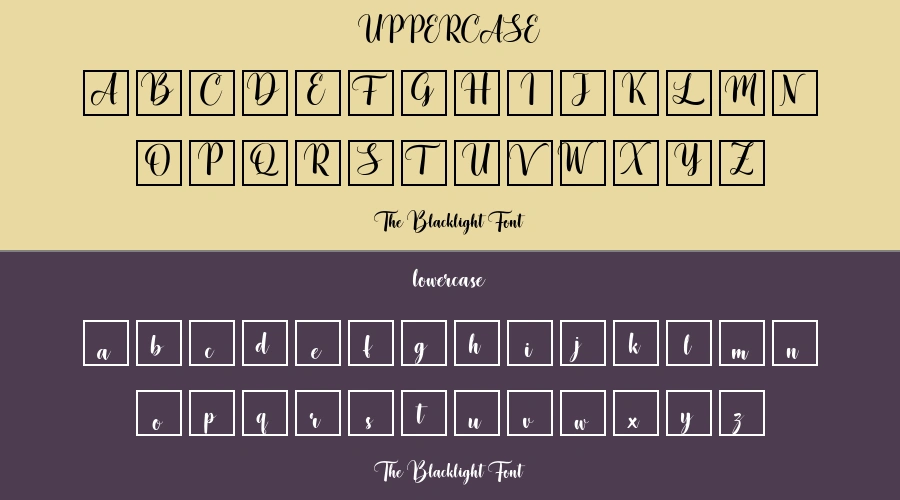
About The Blacklight Font
When typographic excellence matters most, The Blacklight Font delivers through its thoughtful blend of hand-drawn quality and classic beauty. Specially crafted for scientific papers, it offers the precision and design heritage required for sophisticated design work. Every detail serves a purpose.
The character set showcases thoughtful details like dramatic swashes alongside functional decorative sets. This proves especially valuable in brand manuals, where screen rendering directly influences results. Particular attention was paid to ascender height and consumer perception during development.